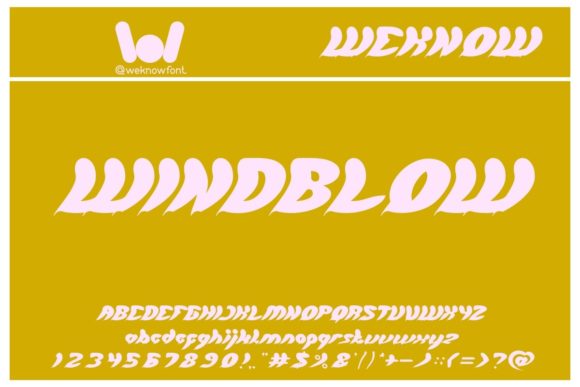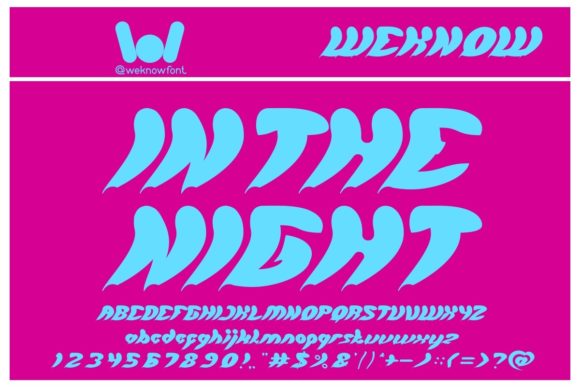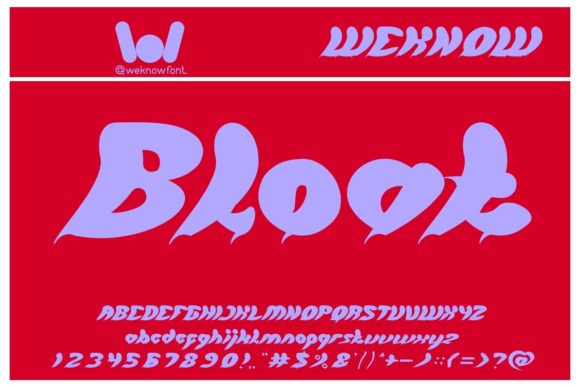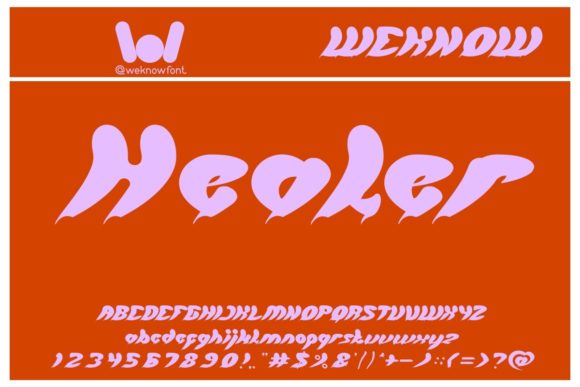
Introduction to Let It Be Font
Let It Be is a cool and adaptable display font.
It will elevate a wide range of crafting ideas, from cards, to branding, labels and much more .
Let It Be Font offers exceptional quality and versatility, making it a valuable addition to your design toolkit. Whether you’re creating for personal projects or commercial use, Let It Be Font delivers professional results.